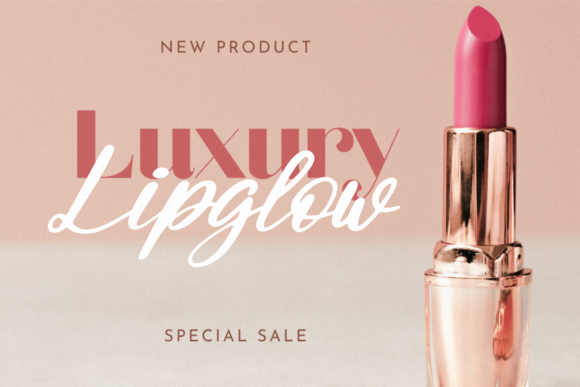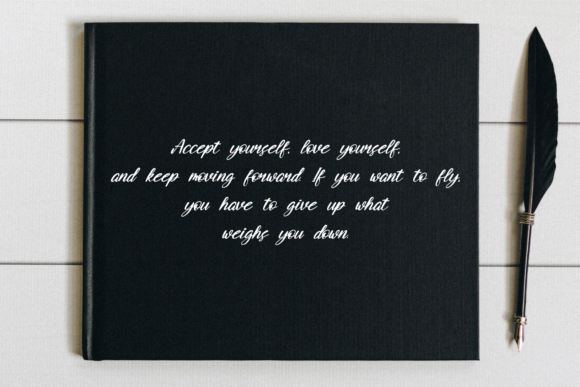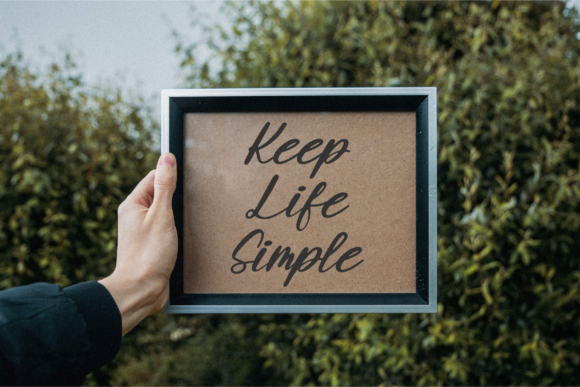
Introduction to Liquearth Font
Imagine the moment when the perfect design element clicks into place, and your creative project takes a leap forward. It’s a feeling that designers know all too well. For many, this moment is often triggered by discovering a unique and captivating font that elevates their work to the next level.
One such font that has captured the hearts of designers is the Liquearth Font. Its charming and elegant appearance makes it a standout choice for a wide range of creative applications, from wedding invitations and thank you cards to logos and business cards.
With its high-quality design and transparent background, the Liquearth Font offers a versatile and valuable resource for designers seeking to add a handwritten touch to their projects.
Key Features of Liquearth Font
- High-quality, unique design resource ideal for creative projects
- Comes with a transparent background, making it easy to use in different design scenarios
- Perfect for designers and artists looking for a distinctive and modern font
- Supports a wide range of languages, including Latin, Cyrillic, and Greek
- Designed to be highly legible and versatile, making it suitable for a variety of creative projects
Honest Review: Liquearth Font
I recently stumbled upon the Liquearth Font, and I must say it’s a great addition to my design resource collection. With its unique, fluid design, this font is perfect for creative projects that require a touch of sophistication.
The font’s transparent background makes it incredibly versatile, allowing designers to easily integrate it into various backgrounds and color schemes. The high quality of the font ensures that it will look sharp and crisp, even at larger sizes.
Here are some things that work well with the Liquearth Font:
- Unique, hand-drawn design that adds a touch of personality to any project
- High-quality font that ensures crisp and clear text
- Transparent background for easy integration into various designs
However, I did encounter some limitations with the Liquearth Font:
- Limited character set, which may not be suitable for longer texts
- Some characters may not be compatible with certain design software
Overall, I’m impressed with the Liquearth Font, and I would definitely recommend it for designers looking for a unique and high-quality font for their creative projects. It’s a great free download that’s definitely worth checking out.
The Liquearth Font is a high-quality font that can be used in a variety of design projects, including:
- Brochures and flyers
- Website headers and footers
- Infographics and data visualizations
Tips for Getting the Most Out of Liquearth Font
To get the most out of the Liquearth Font, be sure to:
- Use it in conjunction with high-quality images and graphics
- Experiment with different font sizes and styles
- Use the transparent background feature to create visually appealing designs
Alternatives to Liquearth Font
Pacifico is a high-quality, elegant script font that’s perfect for creative projects, such as wedding invitations, greeting cards, and typography-based designs. Its beautiful, flowing lines and subtle flourishes make it ideal for adding a touch of sophistication to your design.
Compared to Liquearth Font, Pacifico is more ornate and sophisticated, making it a great choice for high-end designs. While Liquearth Font is more versatile, Pacifico is better suited for projects where a elegant, handwritten feel is required.